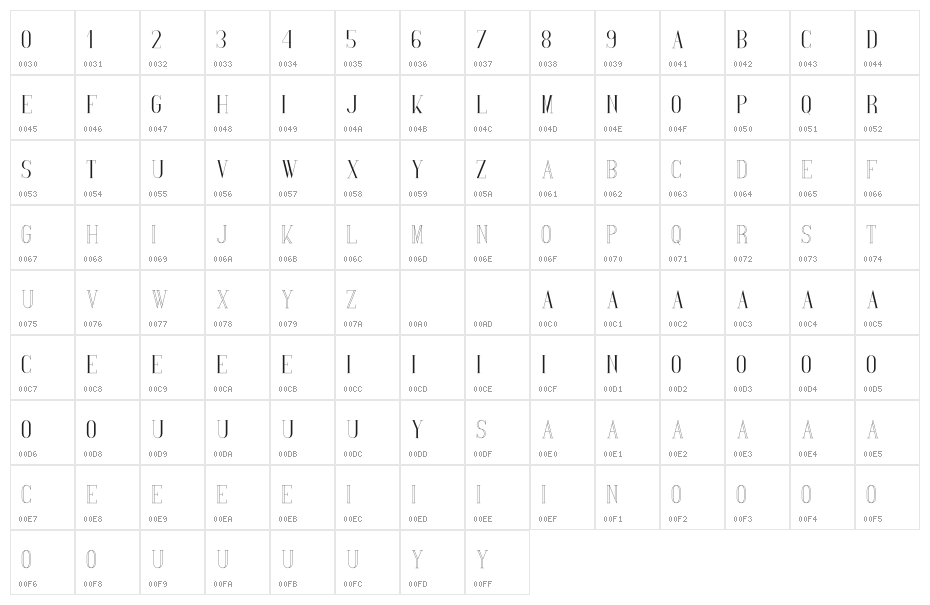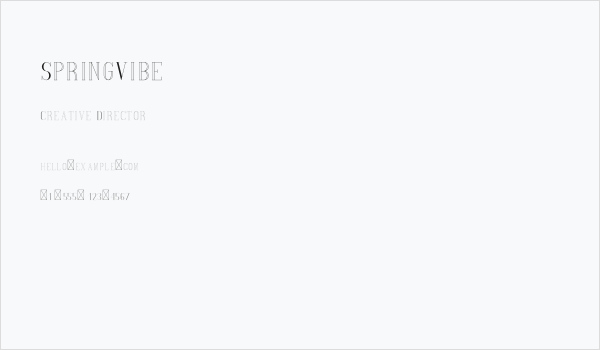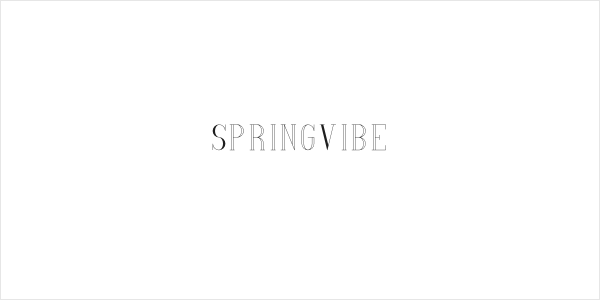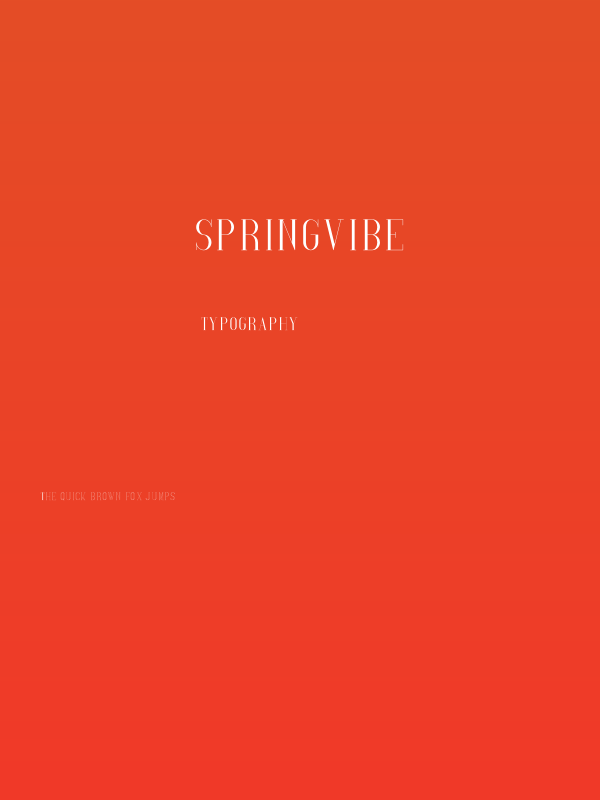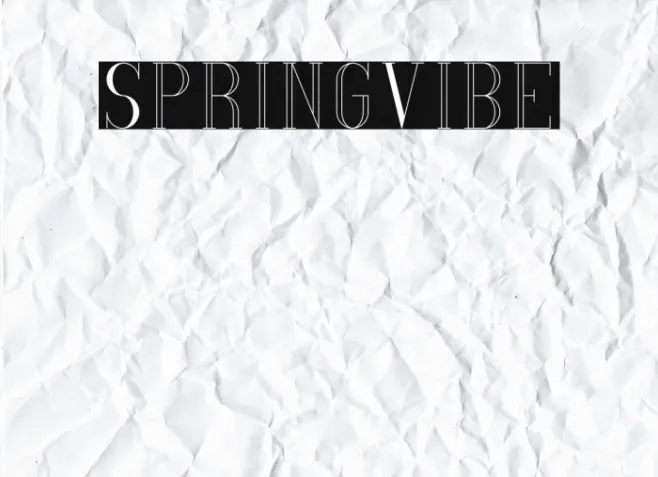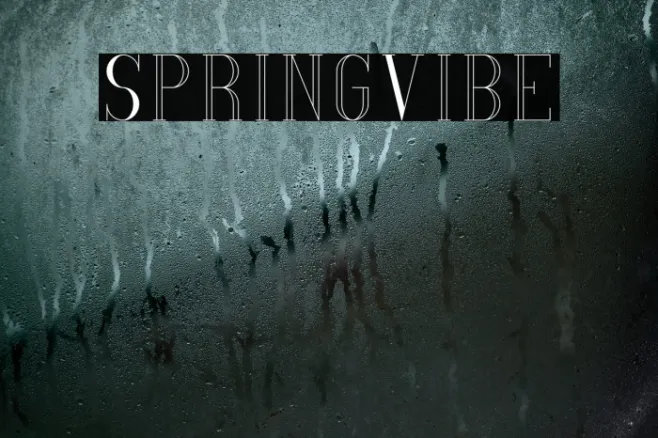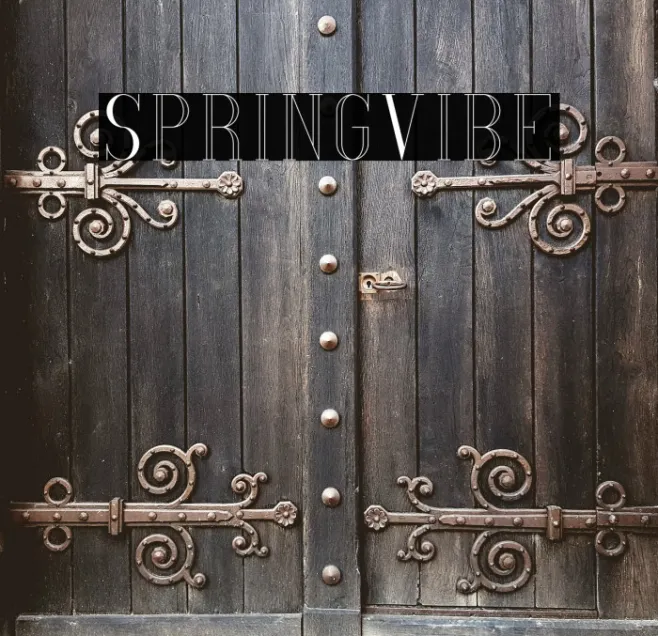
SpringVibe Font
SpringVibe Description
This font features a modern and elegant design with a high contrast between thick and thin strokes, giving it a sophisticated and stylish appearance. The uppercase letters are tall and slender, with a slight flair at the ends, adding a touch of elegance. The lowercase letters maintain a consistent style, complementing the uppercase with their refined and graceful curves. The numerals are clear and distinct, following the same high-contrast style. The overall design is clean and contemporary, making it suitable for a variety of applications where a touch of class and modernity is desired.
| Proposed Projects | Ideal for luxury branding, fashion magazines, wedding invitations, and high-end product packaging. |